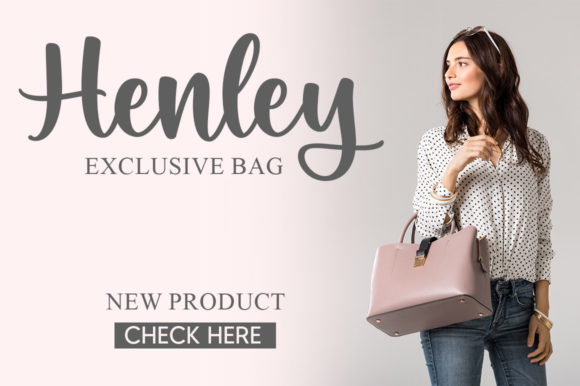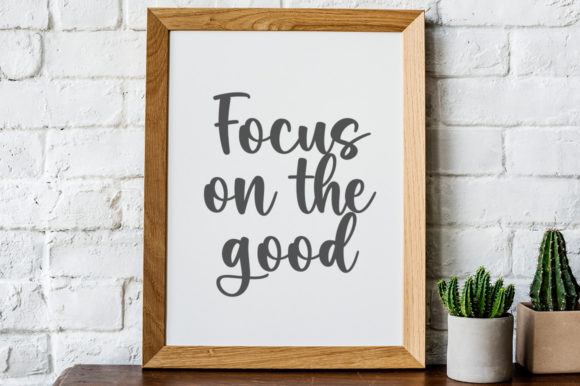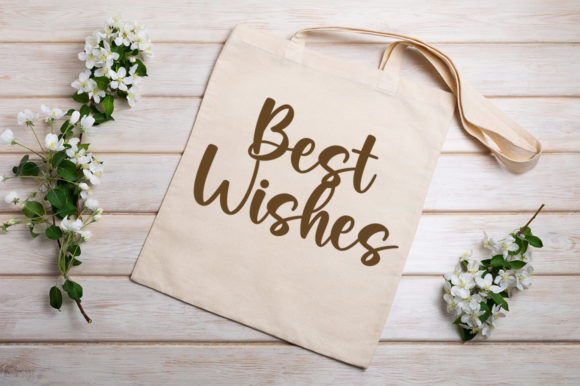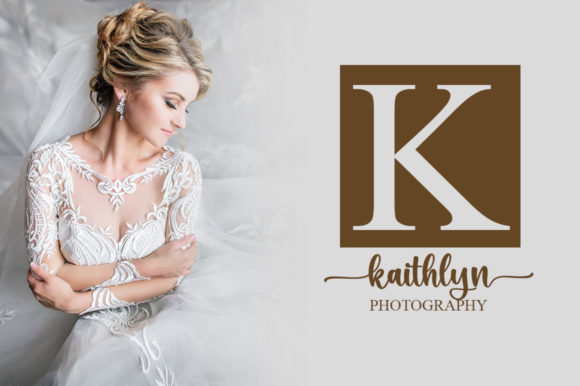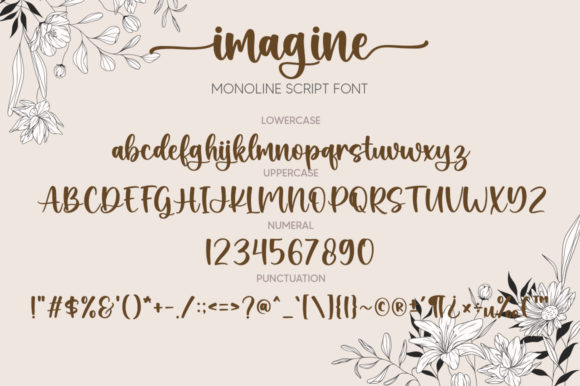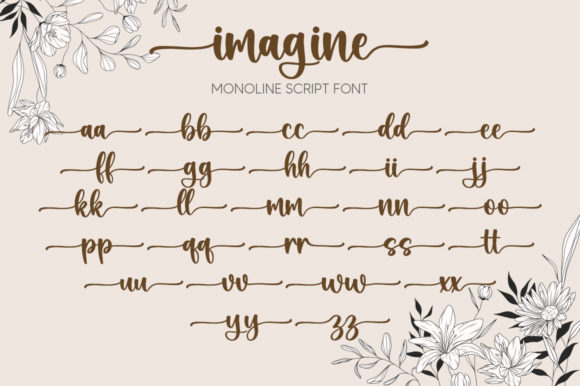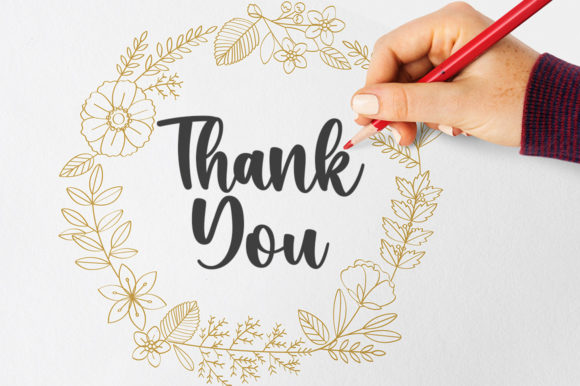
Imagine Font
About Imagine Font
“Imagine” is a captivating and enduring handwritten font that radiates a sense of timelessness and charm. With its graceful strokes and intricate details, it serves as an excellent choice for crafting engaging logos, establishing impactful branding, and adding depth to meaningful quotes.
When utilized in logos, “Imagine” has the potential to evoke a feeling of elegance and authenticity. Its handwritten quality imparts a personalized touch, making the logo feel approachable and inviting. This font is especially well-suited for brands aiming to convey a sense of creativity, imagination, and uniqueness.
In branding projects, “Imagine” truly shines. Its versatile nature enables it to adapt effortlessly to a wide range of industries and styles, from boutique businesses to creative agencies. Whether incorporated into packaging, promotional materials, or digital platforms, it can help establish a consistent and memorable brand image.
The inclusion of PUA encoding is a valuable feature, as it simplifies the process of accessing various swashes, ligatures, and distinctive glyphs. This allows designers to infuse their creations with additional personality and character, ensuring that the typography aligns seamlessly with the brand’s identity and vision.
Furthermore, “Imagine” is an excellent choice for quotes and inspirational messages. Its fluid lines and intricate design elements make it well-suited for typography-focused designs, whether for social media graphics, posters, or book covers. The font’s timeless appeal ensures that the messages it conveys remain impactful and relevant.
In conclusion, “Imagine” is a font that excels at capturing the essence of both the past and the present. Its timeless elegance, combined with the convenience of PUA encoding, makes it a versatile option for designers seeking to craft compelling logos, establish strong branding, and enhance the resonance of meaningful quotes.